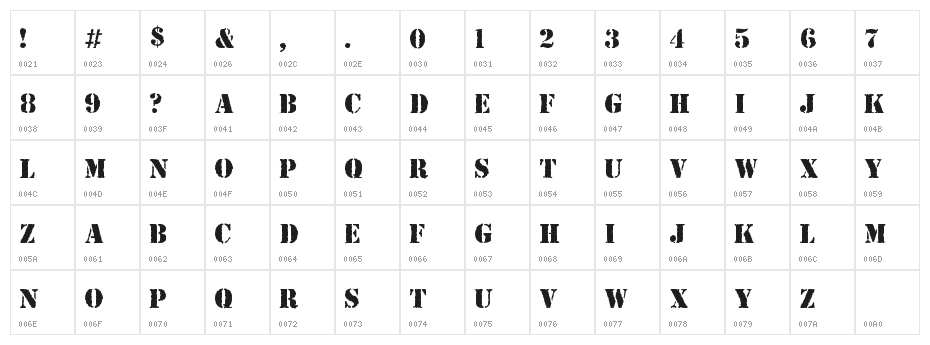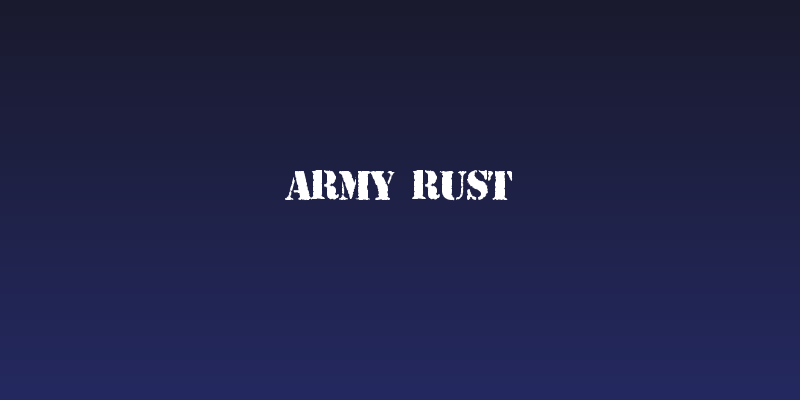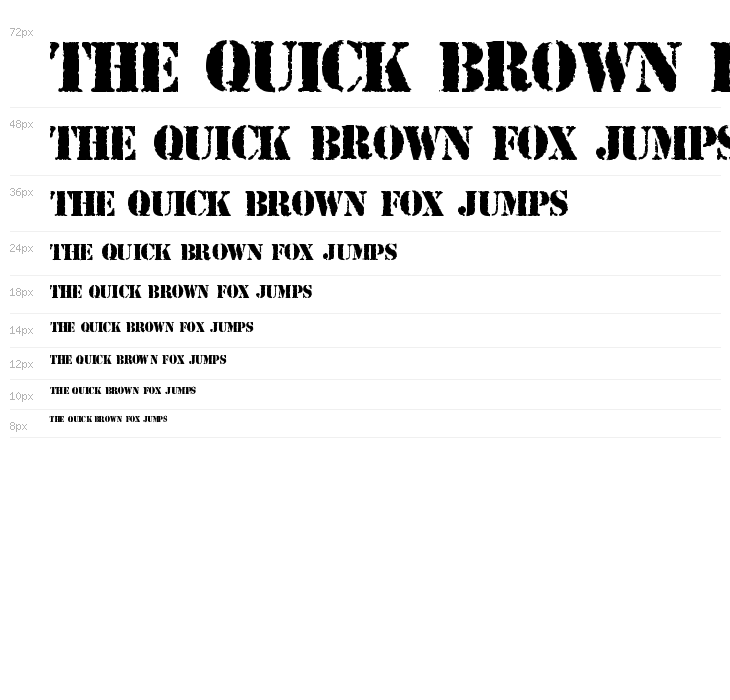
ARMY RUST Font
ARMY RUST Description
This font features a rugged, distressed style that mimics the appearance of worn or rusted metal. The bold, blocky letters are heavily textured, giving them a gritty, industrial feel. Each character appears as if it has been weathered over time, with irregular edges and a rough surface. This design choice adds a sense of authenticity and toughness, making it ideal for projects that require a strong, impactful visual presence. The font maintains consistent proportions across all characters, ensuring readability despite its unique aesthetic.
| Overall Style | Industrial, Rugged |
| Proposed Projects | Ideal for military-themed designs, posters, logos, and branding that require a strong, gritty aesthetic. |